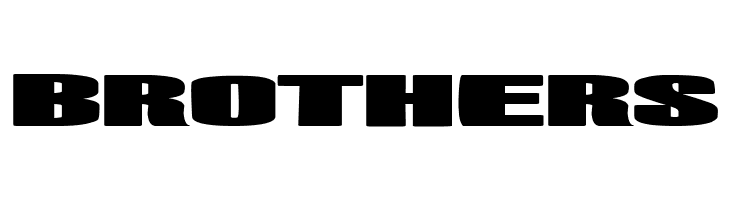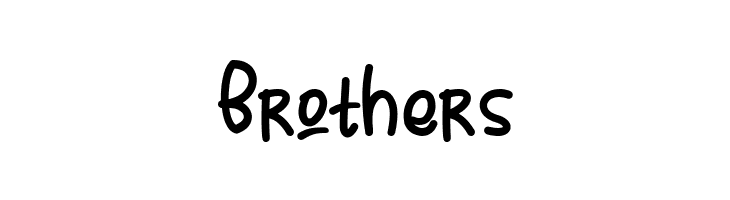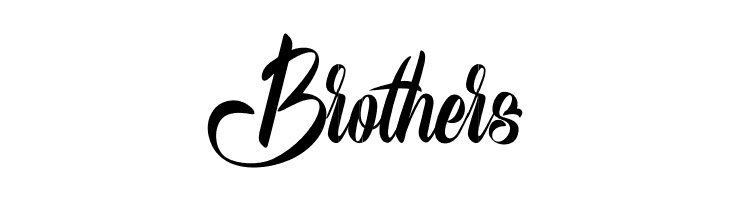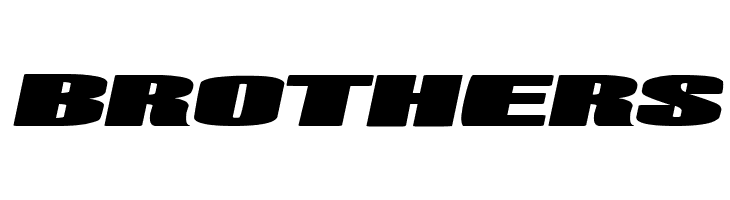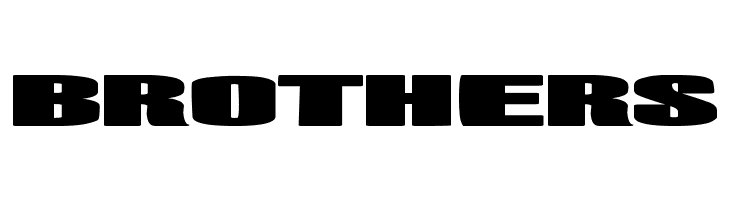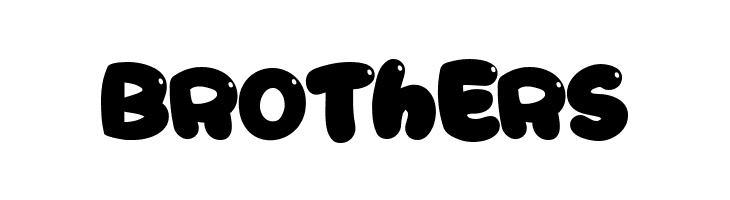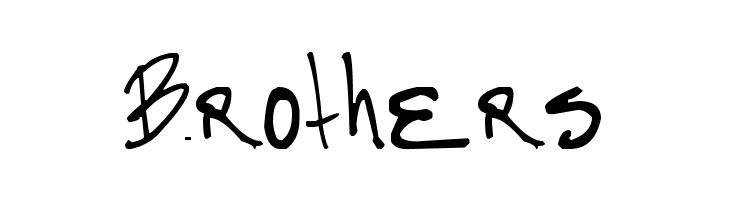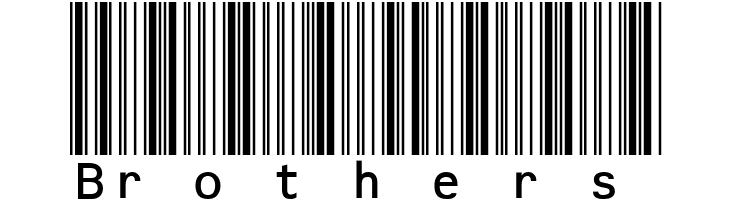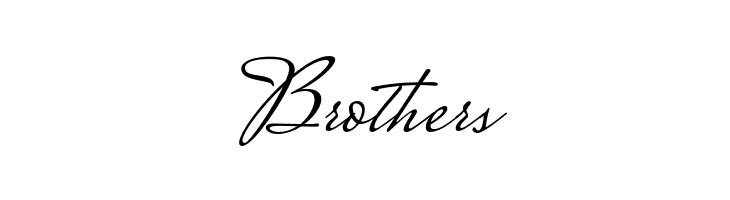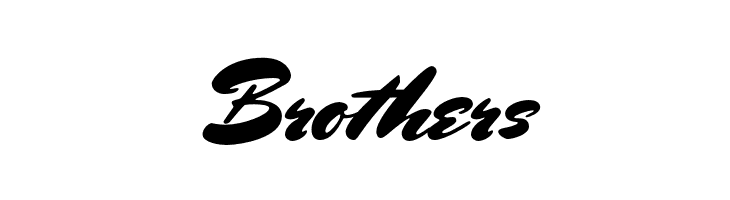
A bold, graffiti-inspired font with angular, dynamic lines and a hand-drawn look.
A playful, handwritten font with bold, rounded strokes and a casual, energetic feel.
A bold, blocky font with a strong, industrial feel.
A bold, blocky font with a strong, industrial aesthetic.
A bold, italic font with a modern, industrial feel and strong presence.
A playful, handwritten font with tall, narrow characters and a casual style.
A modern, geometric sans-serif font with clean lines and excellent readability.
A modern, geometric sans-serif font with a clean and balanced design.
A modern, geometric sans-serif font with consistent stroke width.
A modern, geometric font with bold, rounded characters and a compact design.
A sophisticated script font with flowing, elegant curves and a modern classic appeal.
A bold, geometric font with a modern and decorative style.
A bold, dripping font perfect for spooky or playful themes.
Handwritten cursive script font.
A cursive, handwritten-style font with elegant, flowing strokes.
A novelty font made up of illustrated portraits instead of traditional letters or numbers.
A bold, playful font with rounded strokes and a friendly appearance.
An elegant, flowing script font with a cursive, handwritten style.
A bold, cursive script font with dynamic and flowing characters.
An elegant, high-contrast script font with flowing, decorative curves.
A bold, dynamic script font with high contrast and a strong right slant.
A dynamic, handwritten font with playful and energetic strokes.
A playful, bold font with rounded, bubble-like characters.
A cursive, elegant font with flowing, connected strokes.
An elegant script font with flowing, cursive letterforms and a sophisticated style.
A bold, cursive font with dynamic, sweeping strokes and fluid connections.
A playful, bold font with rounded, whimsical letterforms.